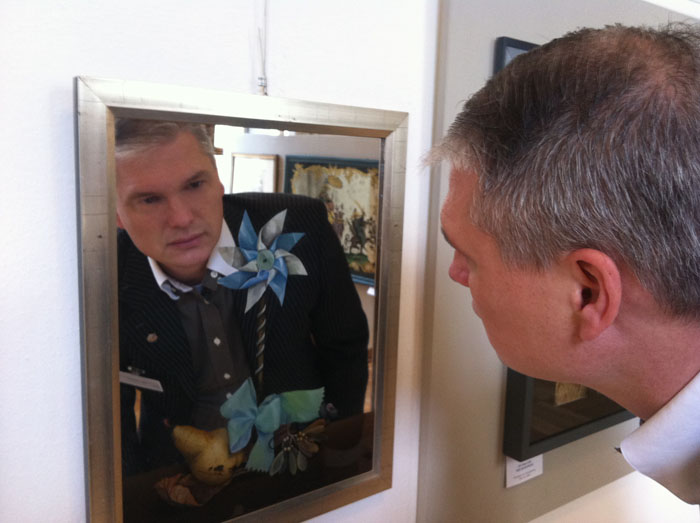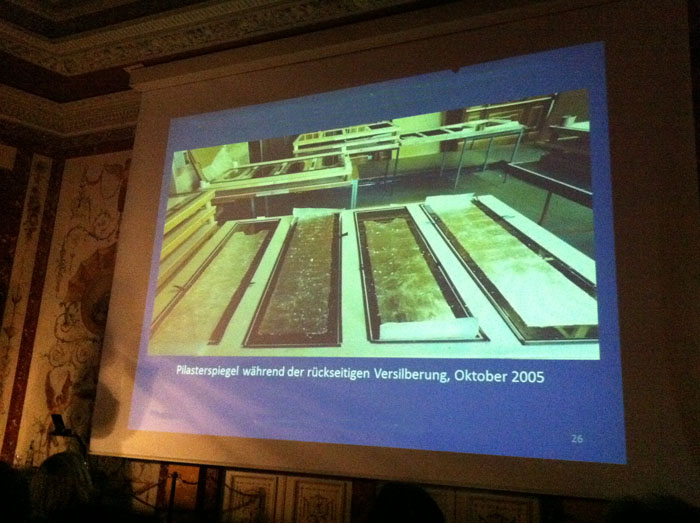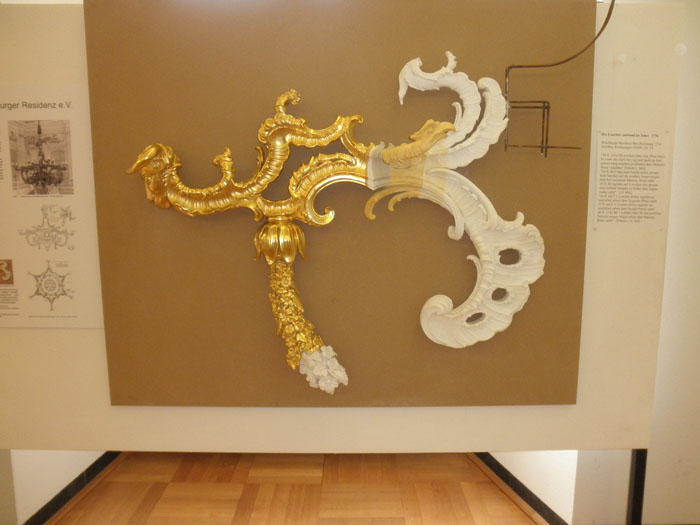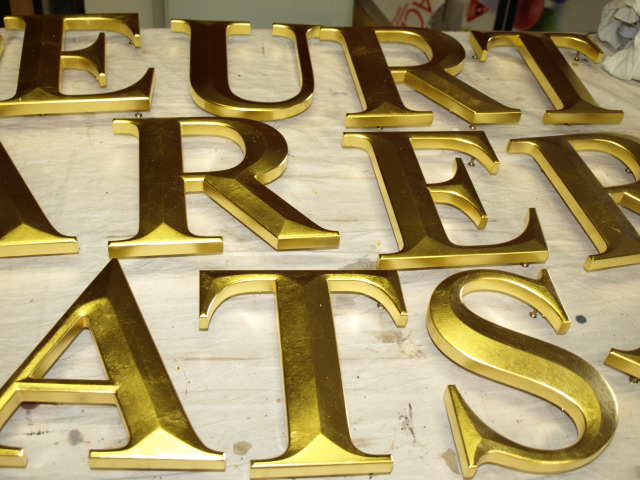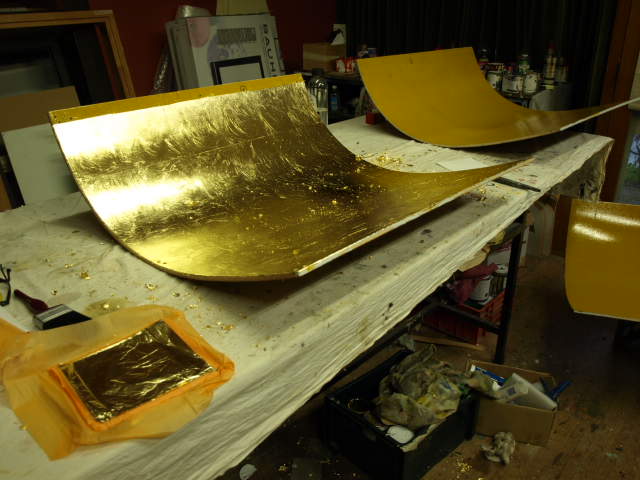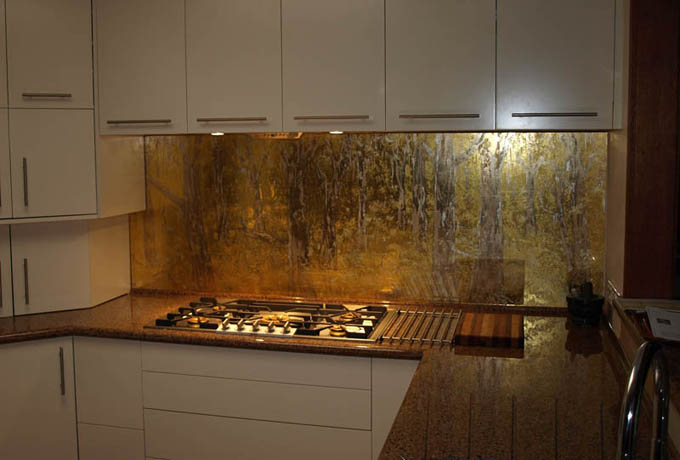
Seems to me that nobody has some news to share.
Am I not the only one who can not share interesting things anymore due to disclaimer issues of certain people?
I just can't believe that only these few great things have been explored besides the few posts we have seen these 8 months.
Goldprices have been high, but I for instance had many other things on my agenda.
Let me know what has been in your thoughts.
Just finished up that "Daniel Webster Cigars" sign that I posted
the vector art of over in the ODM post....was gonna post a
picture of it after I got it framed.
Did up some art work for a "Keep Your Loving Brother Happy" sign....
started that yesterday.
Been havin' some mental health days on Thursdays, for any one
willin' to come over.
Been teachin' Stubby Preston a few things.
Did some glue chip tests.
Silvered a bunch of pieces for Charlie Dickinson.
Oh ya.....I sold four of my signs off my website, and the guy's talkin'
about a couple commission pieces.
Is that enough news for ya?
Larry,
Congrats on selling the pieces off your website!
Everything you do is a piece of art - and you know me well enough to know I'm not a flatterer. I just don't understand how you turn out the volume of work that you do - most of it seems like it's just for the love of the craft. I'm glad you've found someone who sees the value of your art.
Erik - I'm not sure what you mean by the "disclaimer issues of certain people" but I don't personally have much to share. I'm going to order some gold today, despite the high price. I haven't checked in on the forum as often as I used to. Things are creeping along here. Enough to keep my head above the water but nothing terribly noteworthy.
Larry I knew I could count on you, bussy as allways too.
Really good news you have this deals.
Dan, tell me what are your plans with the goldleaf?
Going to make luxery bonbons or stepping up higher on your creativity scale?
I just came back this weekend from the German city of Würtzburg where there was a mayor symposium of reverse glass painting.
Two days packed full of lectures and resume's of reverse glass restorations.
I met Frances Federer there who has been engraving gold on glass for 30 years now.
Lots more to tell for later I guess...
That sounds great Erik, did you get any photos please?
The news is that with the slow economy here in Northern Colorado, we have been barely getting enough small, boring jobs to keep the bills paid. The reality is that in order to have enough income, we have taken on an over-abundance of tiny jobs which keeps us more busy than when we have a few good projects in process. The net result is that we have nothing interesting to share much less time to do so. I hope everyone else is doing better than this.
Client was happy.
Where do you place your air gap?
I can imagine if you would place it on top the moisture from cleaning will collect through the hole on the the bottom...
I did some Handlettering a while ago.
Working on an old Dutch handlettering script that was used for centuries in the cafe's in Amsterdam.
Hanging on the ladder was difficult.
Handlettering with a stretched arm and no possible way to use a mahlstick did not made it easier.
Client was happy.